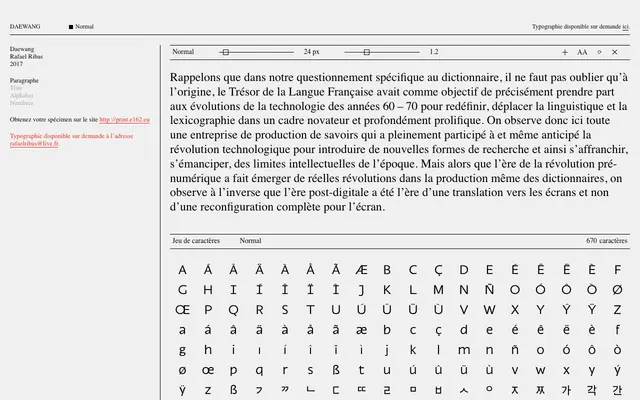
Daewang
E162 · Rafael Ribas · 2017
A single-weight display typeface by Rafael Ribas, released through the French micro-foundry E162 in 2017 and available on request.
Designed by Rafael Ribas and released in 2017, Daewang is offered through E162 as a bespoke typeface available on direct request rather than standard retail. The character set runs to 670 glyphs, suggesting reasonable Latin coverage for a single-weight design. Its availability via specimen print and direct contact places it firmly in the tradition of small French foundry releases aimed at considered, project-specific use.
The typeface is presented as a display font by E162, with limited contextual detail but positioned as a bespoke or experimental design available on request, suggesting a display-oriented character.